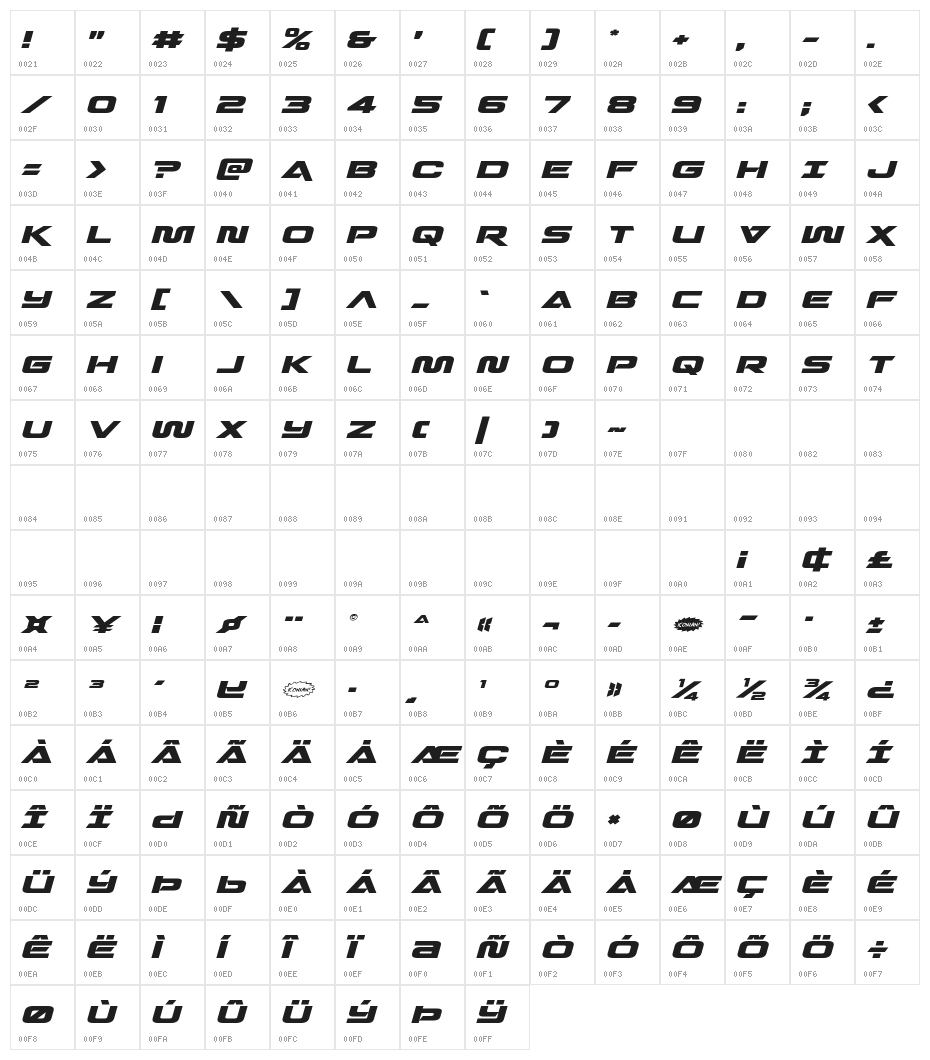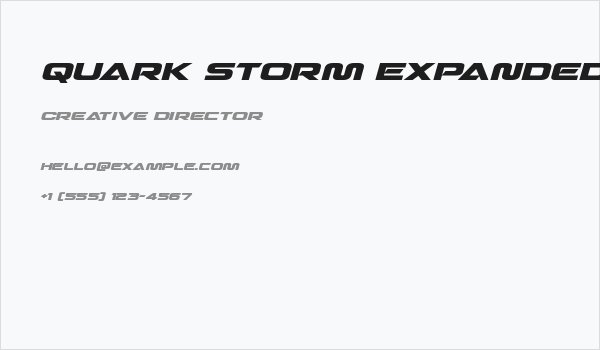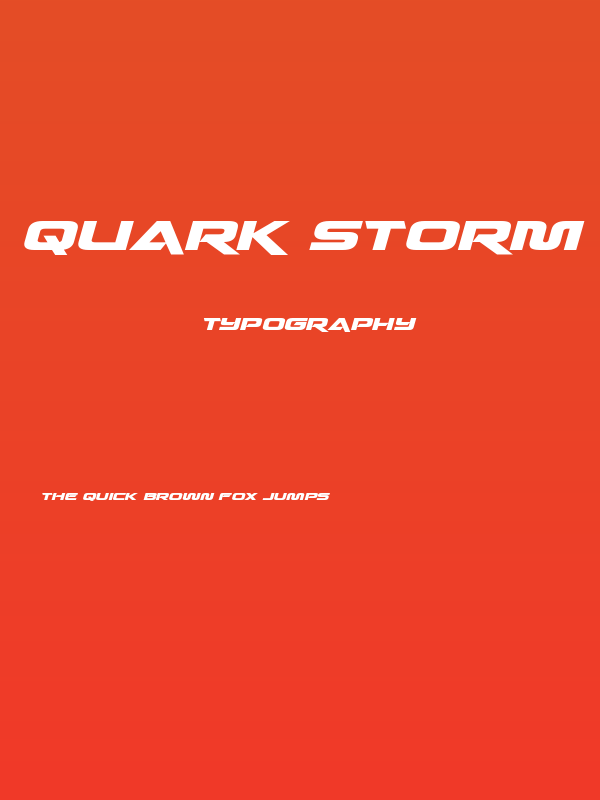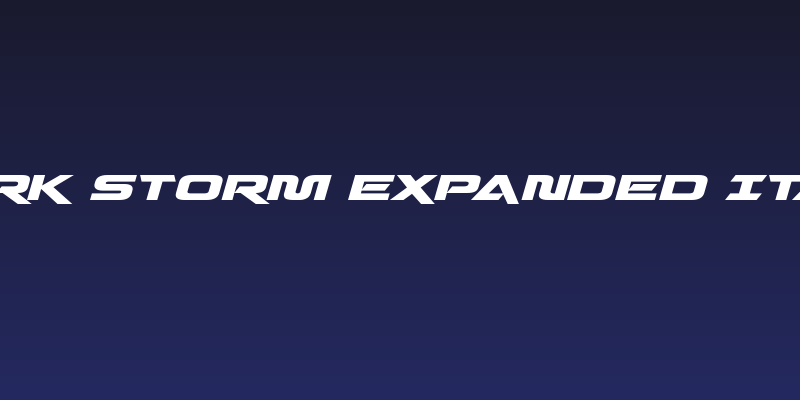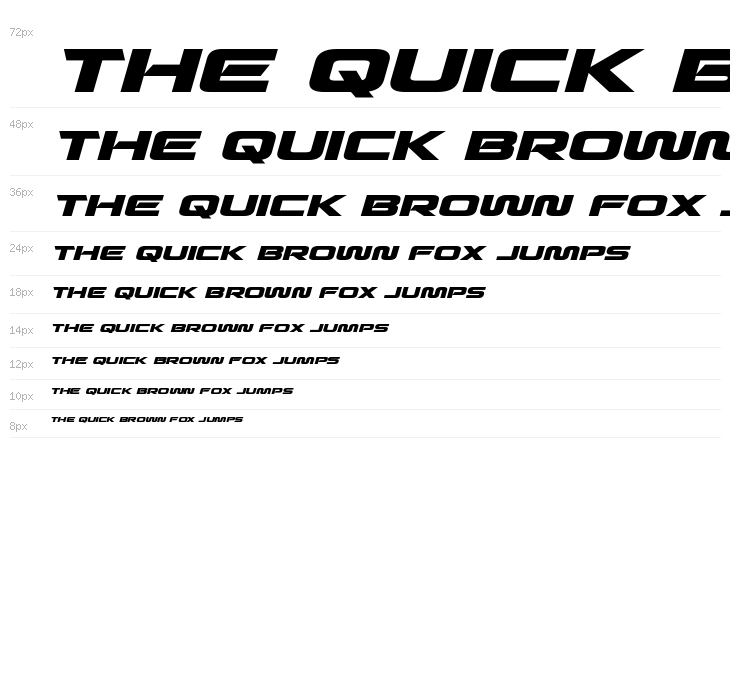
Quark Storm Expanded Italic Font
Quark Storm Expanded Italic Description
This font features a bold, futuristic design with an expanded width and italicized slant, giving it a dynamic and forward-moving appearance. The characters are sharply angled, with a distinct geometric style that emphasizes speed and modernity. The uppercase and lowercase letters maintain a consistent style, while the numerals and special characters complement the overall aesthetic. The font's bold weight and expanded width make it highly legible and impactful, suitable for attention-grabbing designs.